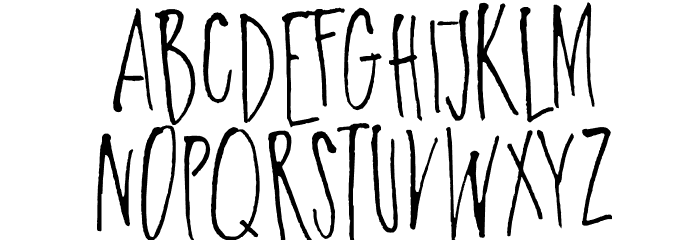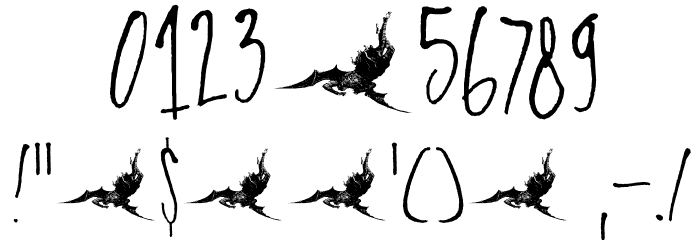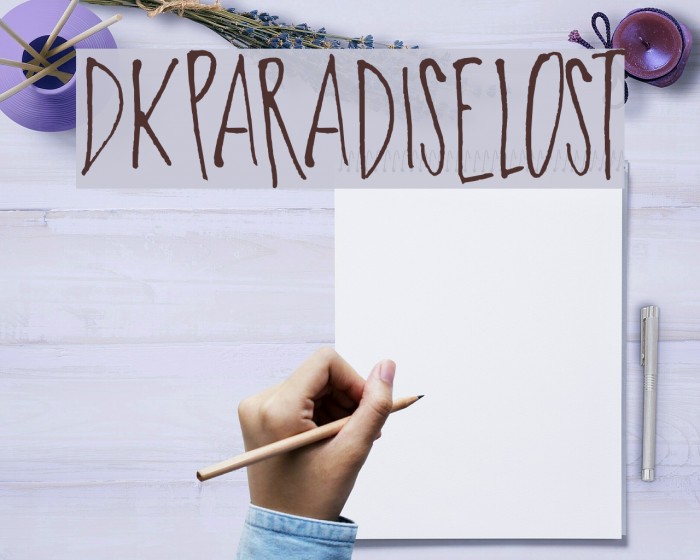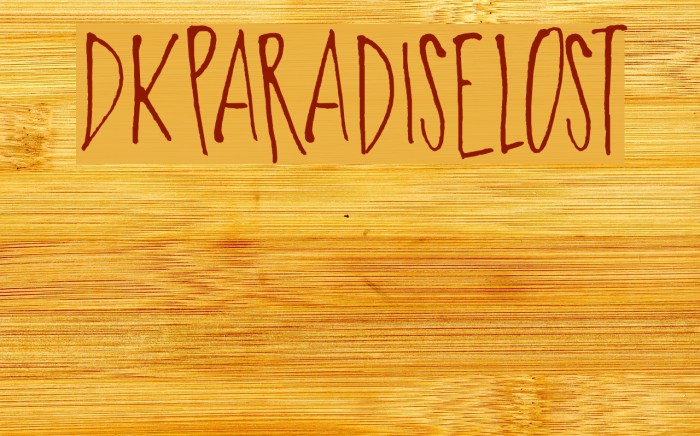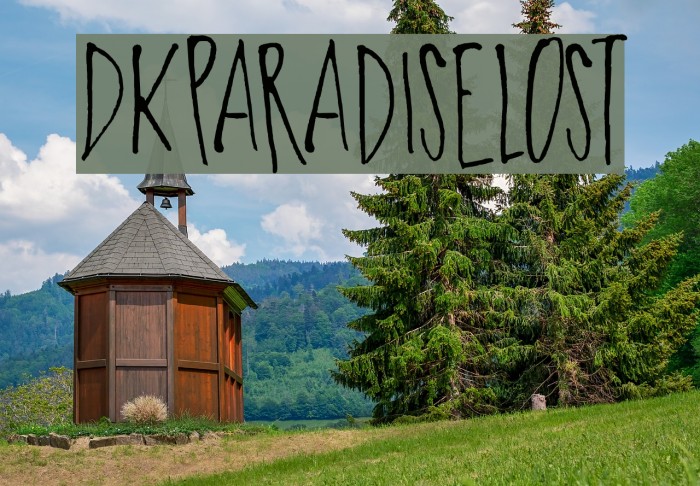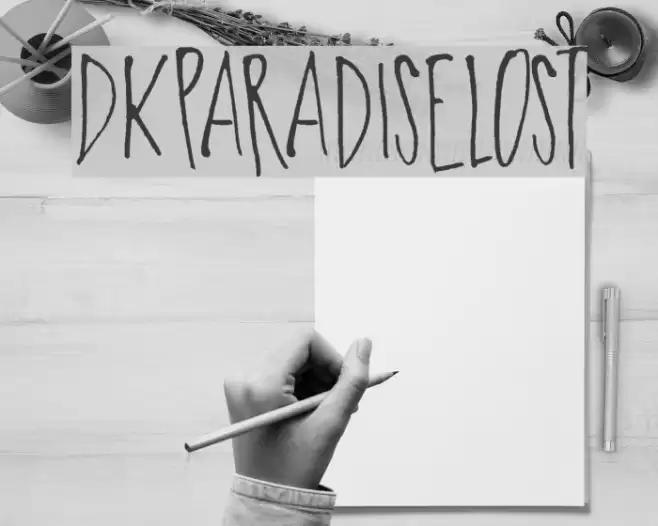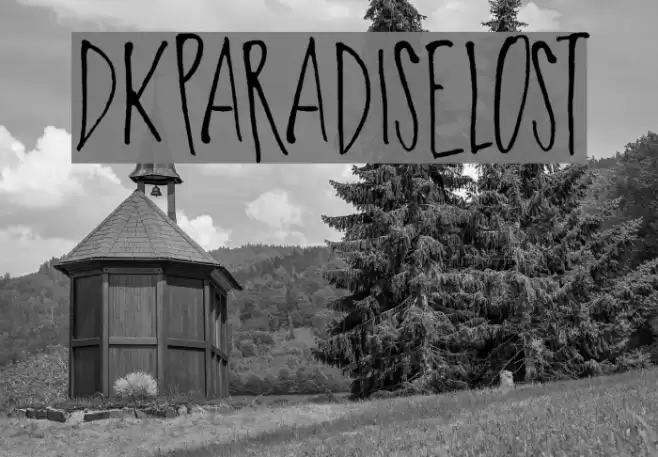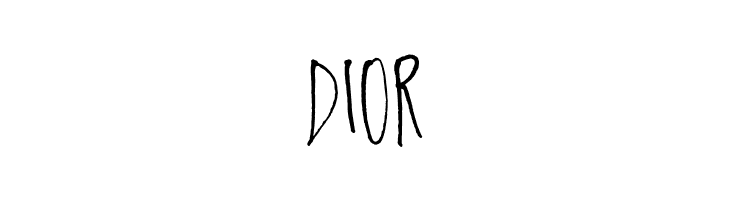
DKParadiseLost Font
This font features a unique, hand-drawn style with elongated, irregular strokes that give it a whimsical and artistic appearance. The uppercase and lowercase letters maintain a consistent height, creating a cohesive look. The numbers and special characters are equally expressive, with some incorporating playful, illustrative elements. The overall design is reminiscent of a vintage or fantasy theme, making it stand out in creative projects. The font's uneven lines and varying thicknesses add to its charm, providing a dynamic and lively feel.
A whimsical, hand-drawn font with elongated, irregular strokes and playful elements.
- Proposed Projects: Ideal for fantasy book covers, artistic posters, creative branding, and whimsical invitations.
- Overall Style: Vintage, Artistic